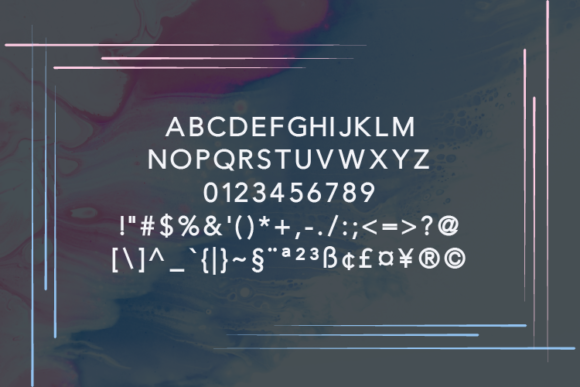
Introduction to Gothic Medium Font
Have you ever stared at a blank design canvas, waiting for inspiration to strike? For designers, that moment of creative spark is a thrilling experience. It’s the spark that leads to something truly unique and special – a project that showcases your style and creativity. In that moment, the right font can make all the difference. That’s where the Gothic Medium Font comes in – a modern and elegant sans serif font that’s sure to elevate your design projects.
Whether you’re working on a new logo, brochure, or website, the Gothic Medium Font is a valuable addition to your design resource library. Its clean lines and sophisticated feel make it perfect for pairing with script and handwritten fonts, creating a harmonious balance of style and texture. Plus, its high quality design ensures that it will look great on any background – even with a transparent background.
Gothic Medium Font
- Unique characteristic: Distinctive Gothic-inspired design with medium weight
- Perfect for designers seeking a classic, yet modern font for their creative project
Honest Review: Gothic Medium Font
- ✨ The font’s Gothic style gives it a unique and edgy feel, perfect for projects that require a touch of darkness.
- ✨ The high quality of the font is evident in its crisp lines and well-defined characters.
- ⚠️ The font might not be suitable for projects that require a more traditional or elegant feel.
- ⚠️ The font is not as versatile as some other fonts, so it might not work well in a variety of design contexts.
Overall, I think the Gothic Medium Font is a great design resource for designers who want to add a touch of edginess to their projects. While it may not be the perfect font for every project, it’s definitely worth considering for creative projects that require a bold and dramatic feel.
Gothic Medium Font
The Gothic Medium Font is a versatile and stylish design resource that can elevate your creative projects. With its high-quality aesthetic and transparent background, it’s perfect for designers and non-designers alike.